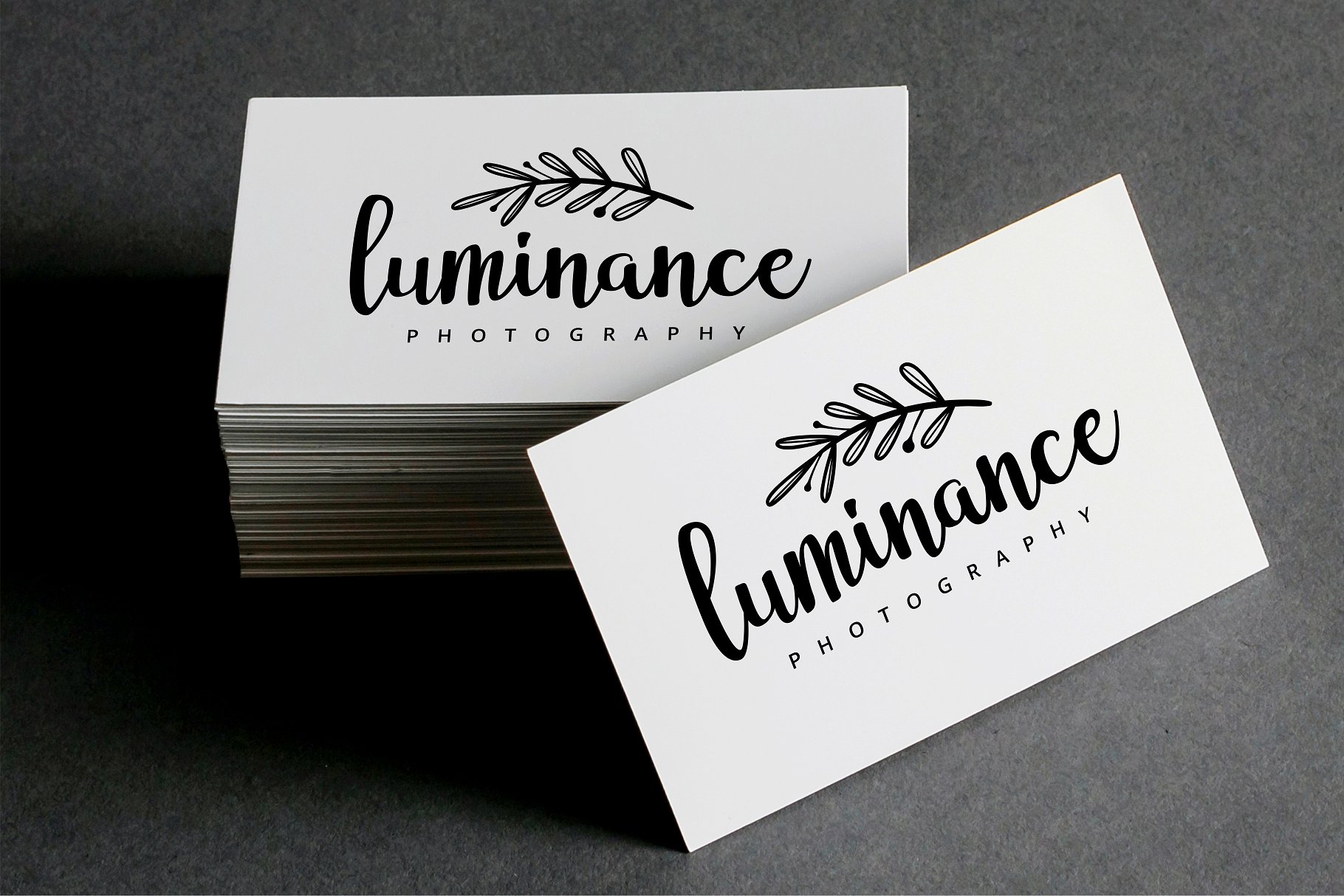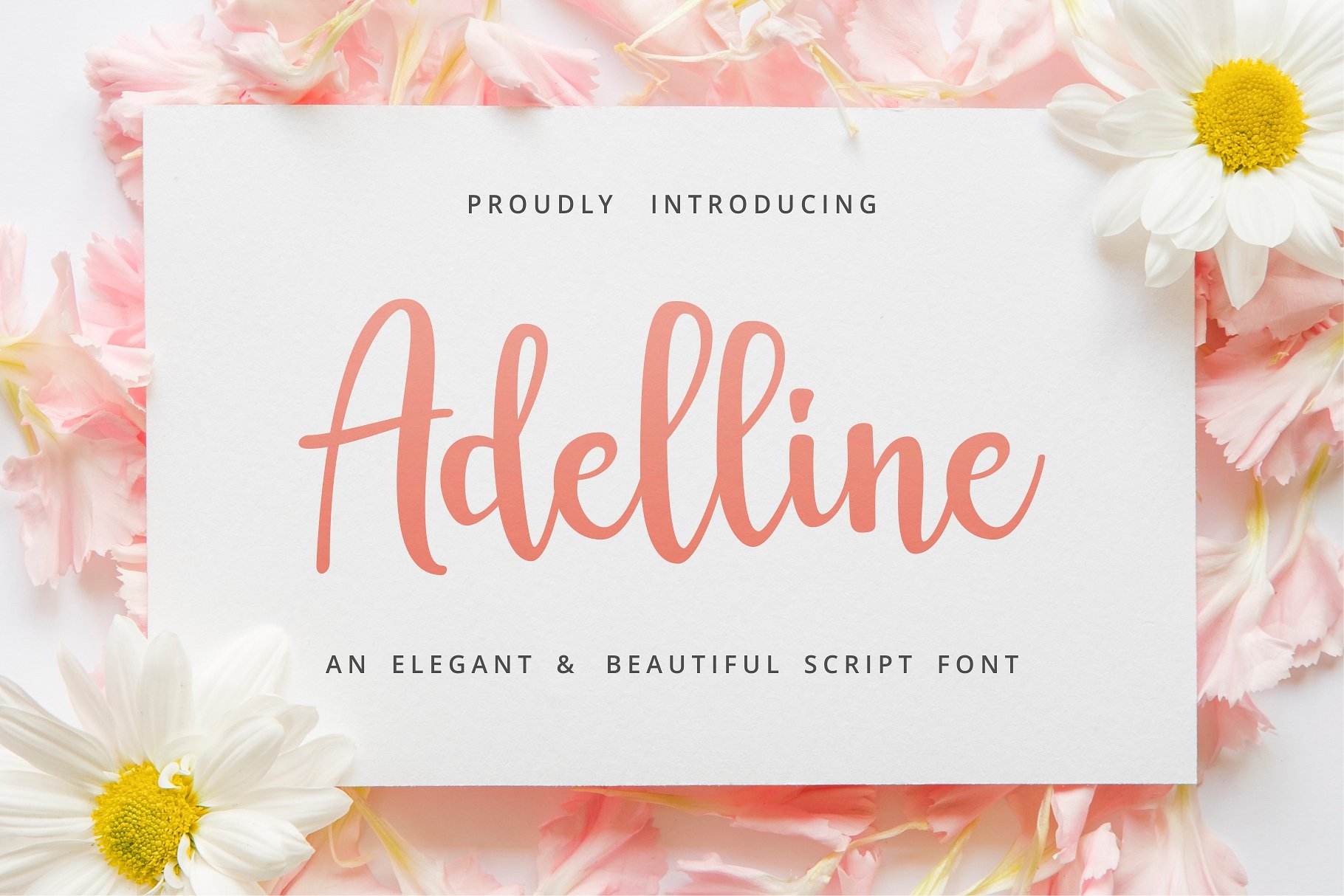
Adelline Script
Adelline Script Font
Adelline would perfect for photography, tittle, heading, watermark, social media posts, advertisements, logos & branding, invitation, product designs, label, stationery, wedding designs, product packaging, graphic design that need handwriting taste.